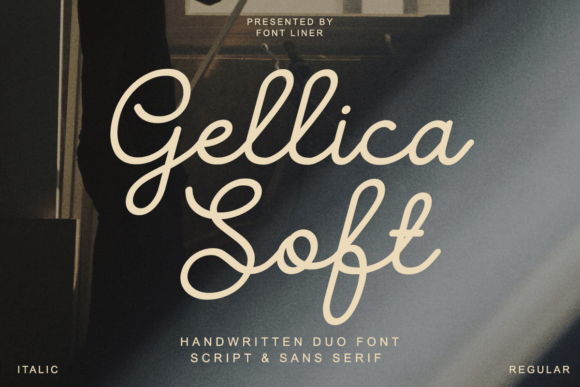
Gellica Soft Font: A Beautiful Handwritten Font Duo for Your Design Needs
In the world of typography, fonts play a crucial role in conveying the message and aesthetic of a design. With the numerous font options available, finding the perfect one that suits your design needs can be overwhelming. However, if you’re looking for a unique and stylish font that can elevate your designs, look no further than Gellica Soft Font. In this article, we’ll explore the features and benefits of Gellica Soft Font and how it can be used to enhance your designs.
What is Gellica Soft Font?
Gellica Soft Font is a handwritten font duo that consists of two font styles: an italic version and a regular version. The italic version is a monoline handwritten font, while the regular version is equipped with a sans serif monoline model combined with a script character. This font duo is designed to take inspiration from simple yet effective designs of the past, making it perfect for various design applications.
Key Features of Gellica Soft Font
- Handwritten Font Duo: Gellica Soft Font comes with two font styles: an italic version and a regular version, making it versatile for different design needs.
- Monoline Handwritten Font: The italic version features a monoline handwritten font that adds a touch of elegance and sophistication to your designs.
- Sans Serif Monoline Model: The regular version combines a sans serif monoline model with a script character, creating a unique and stylish look.
- Simple yet Effective: Gellica Soft Font is designed to take inspiration from simple yet effective designs of the past, making it perfect for designs that require a touch of nostalgia.
Use Cases for Gellica Soft Font
Gellica Soft Font is a versatile font duo that can be used for various design applications. Here are some use cases where Gellica Soft Font can shine:
- Product Logo: Create a unique and stylish logo for your product with Gellica Soft Font. Its elegant and sophisticated look makes it perfect for product branding.
- Wedding Card Logo: Add a touch of romance and elegance to your wedding card with Gellica Soft Font. Its handwritten style makes it perfect for wedding designs.
- Clothing Brand Logo: Create a stylish and modern logo for your clothing brand with Gellica Soft Font. Its unique look makes it perfect for fashion brands.
- Vintage Design: Gellica Soft Font is perfect for vintage designs that require a touch of nostalgia. Its simple yet effective design makes it ideal for creating vintage-inspired designs.
Benefits of Using Gellica Soft Font
Using Gellica Soft Font can bring numerous benefits to your designs. Here are some advantages of using Gellica Soft Font:
- Unique and Stylish: Gellica Soft Font offers a unique and stylish look that can elevate your designs and make them stand out.
- Versatile: Gellica Soft Font is a versatile font duo that can be used for various design applications, making it a great addition to your font library.
- Elegant and Sophisticated: Gellica Soft Font features an elegant and sophisticated look that can add a touch of luxury to your designs.
- Easy to Read: Gellica Soft Font is designed to be easy to read, making it perfect for designs that require a clear and legible font.
Tips for Using Gellica Soft Font
Here are some tips for using Gellica Soft Font effectively in your designs:
- Pair it with Other Fonts: Experiment with pairing Gellica Soft Font with other fonts to create a unique and stylish look.
- Use it for Headings: Use Gellica Soft Font for headings and titles to add a touch of elegance and sophistication to your designs.
- Experiment with Colors: Experiment with different colors to find the perfect match for Gellica Soft Font and your design.
- Keep it Simple: Keep your design simple and clean to let Gellica Soft Font shine.
In conclusion, Gellica Soft Font is a beautiful handwritten font duo that can elevate your designs and make them stand out. Its unique and stylish look, versatility, and elegance make it perfect for various design applications. Whether you’re creating a product logo, wedding card logo, clothing brand logo, or vintage design, Gellica Soft Font is a great choice. With its ease of use and flexibility, Gellica Soft Font is a great addition to your font library.
- What is Gellica Soft Font? Gellica Soft Font is a handwritten font duo that consists of two font styles: an italic version and a regular version.
- What are the use cases for Gellica Soft Font? Gellica Soft Font can be used for product logos, wedding card logos, clothing brand logos, vintage designs, and more.
- Is Gellica Soft Font easy to read? Yes, Gellica Soft Font is designed to be easy to read, making it perfect for designs that require a clear and legible font.